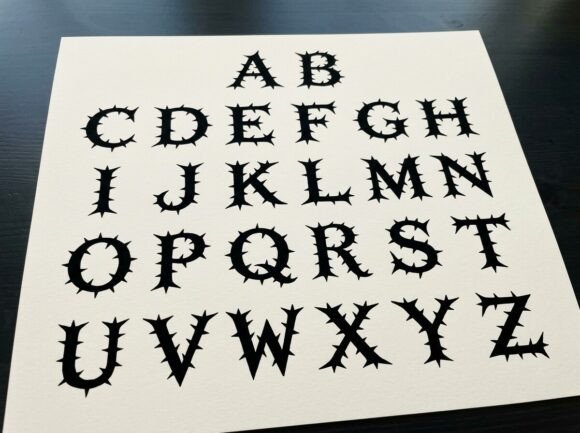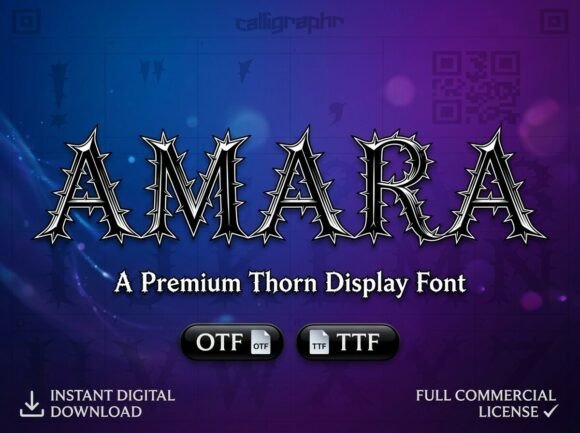
Unlocking Creative Potential with Amara Font
Have you ever been in the midst of working on a project, pouring your heart and soul into it, only to hit a creative roadblock because of one thing: the font? I recall a particularly frustrating experience when I was designing a logo for a client. I wanted something that would stand out, something bold and artistic, but everything I tried seemed either too bland or too over-the-top. That’s when I stumbled upon Amara Font, a decorative display font that was about to become my new best friend.
First Impressions: A Designer’s Delight
Amara Font is designed to be the centerpiece of any layout, and boy, does it deliver! With its distinct artistic elements and strong character, it’s perfect for creators who want to break away from the ordinary. Whether you’re working on bold headlines, creative branding, or packaging, Amara Font brings a high-end, professional aesthetic without compromising on personality.
⚠️ Technical Note: Keep in mind that Amara Font is an All-Caps display typeface. By design, it does not contain lowercase letters, making it a powerful tool for logos, titles, and decorative initials.
Honest Review: The Good and the Quirks
- ✨ Unique Artistic Elements: Amara Font stands out with its bold and artistic design, making any project instantly more captivating.
- ✅ High Versatility: Despite being an All-Caps font, Amara Font offers a range of uses, from professional branding to creative packaging.
- 💼 Professional Aesthetic: It brings a level of sophistication and elegance to projects that can be hard to achieve with standard fonts.
⚠️ While Amara Font is incredibly versatile and powerful, it’s essential to note its limitations. Since it’s an All-Caps display typeface without lowercase letters, it might not be suitable for body text or projects requiring extensive written content. Additionally, some users might find the font’s distinct style too bold for certain applications.
The Story Behind Amara Font
Amara Font was inspired by the need for a bold yet elegant typeface that could serve as the centerpiece of any design project. Its creator, a passionate typographer, aimed to craft a font that exudes professionalism while maintaining a unique artistic flair. The result is a font that has quickly become a favorite among designers and creative hobbyists alike.